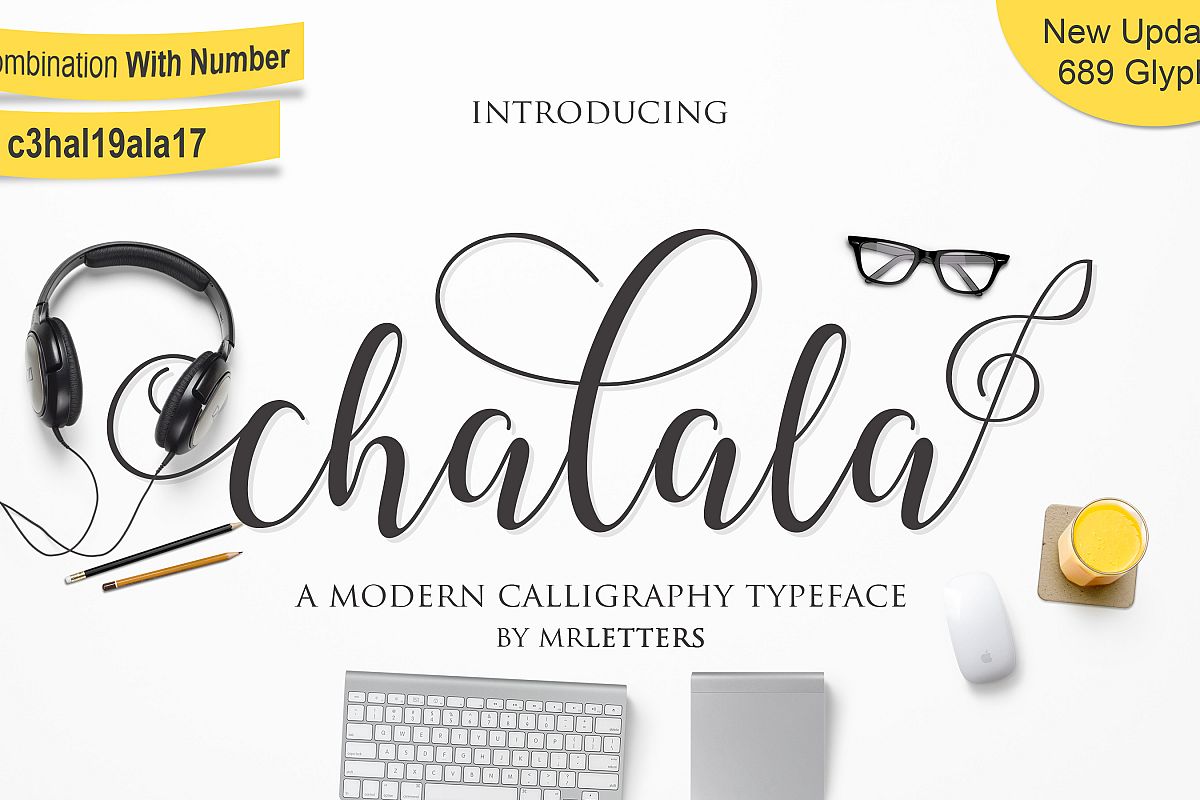
Chalala Script
This time I did not tell you about romance, it is about us, so we are working as a designer, as a designer ought to be always happy and cheerful in order to always get the ideas of interest in work, when you are tired and tired of not finding a good idea , rest for a moment and sing "Chalala" and this is my latest font name. : D
Introducing
Chalala Script
a new fresh & modern script with a handmade calligraphy style, decorative characters and a dancing baseline! So beautiful on invitation like greeting cards, branding materials, business cards, quotes, posters, and more!!
Chalala Script
come with
656 glyphs
Chalala Script: